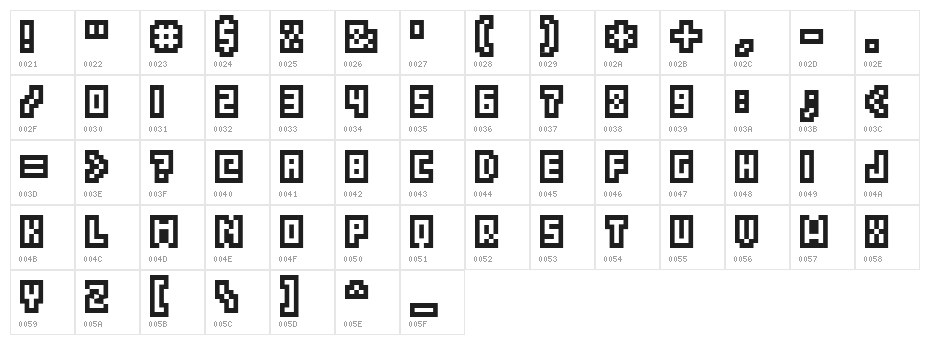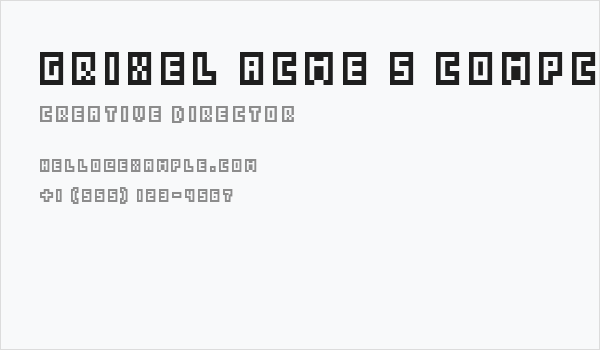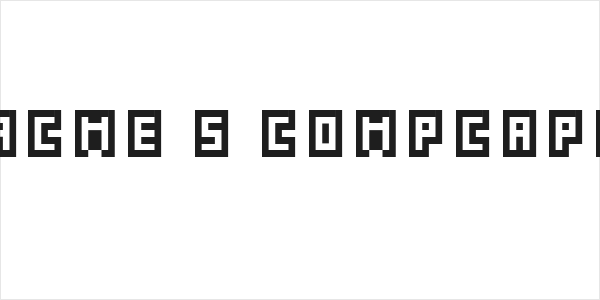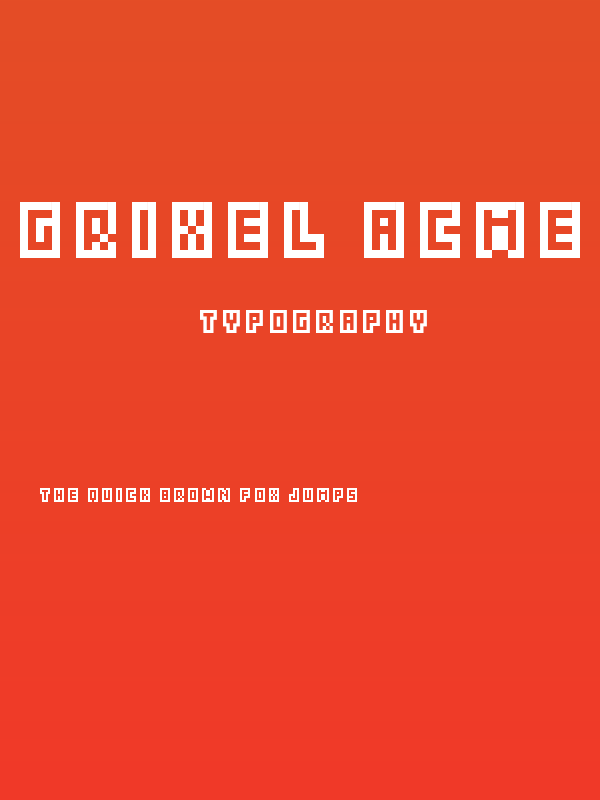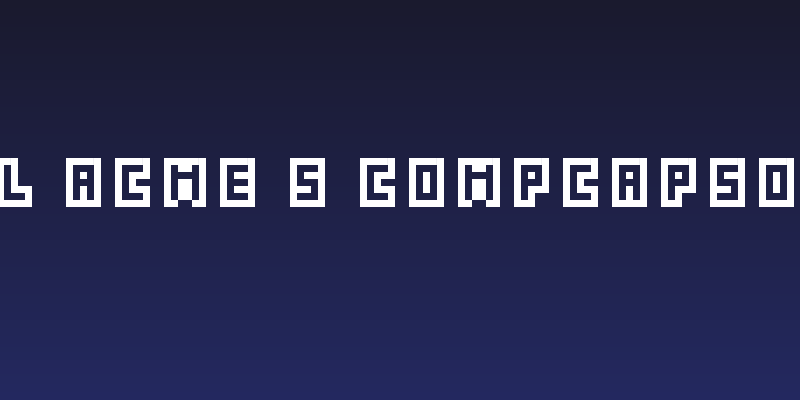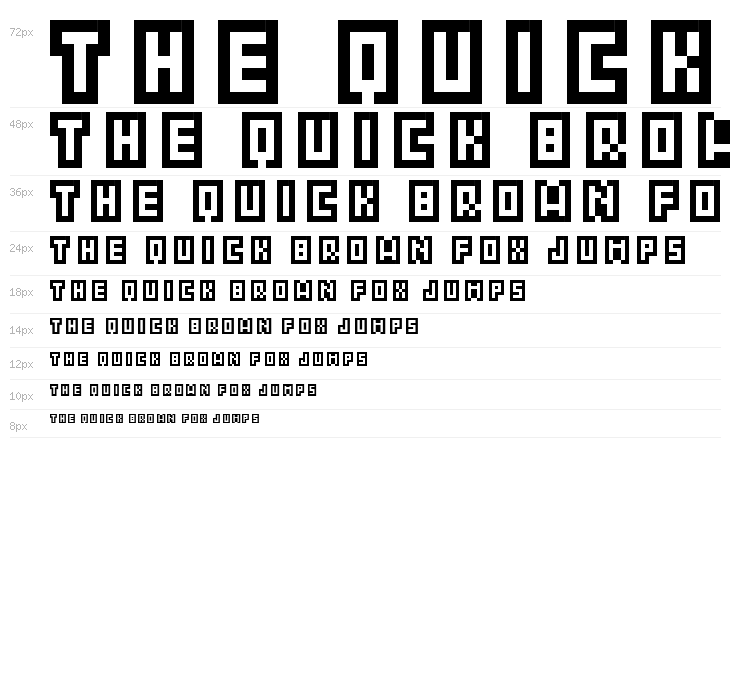
Grixel Acme 5 CompCapsO Xtnd Font
Grixel Acme 5 CompCapsO Xtnd Description
This font features a bold, pixelated design reminiscent of classic arcade games and early computer graphics. Each character is constructed with a blocky, grid-like structure, giving it a distinctly retro and digital aesthetic. The uppercase and lowercase letters maintain a consistent height, enhancing the uniformity and readability of the text. Numbers and special characters follow the same pixelated style, ensuring a cohesive look across all glyphs. The font's geometric shapes and sharp edges make it ideal for projects that aim to evoke nostalgia or a tech-inspired theme.
| Overall Style | Retro, Digital |
| Proposed Projects | Ideal for video game design, retro-themed posters, digital art, and tech-related branding. |